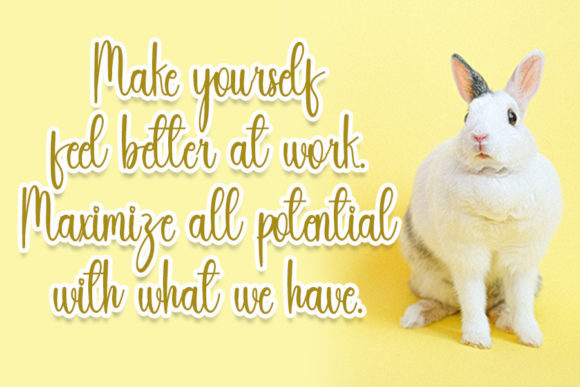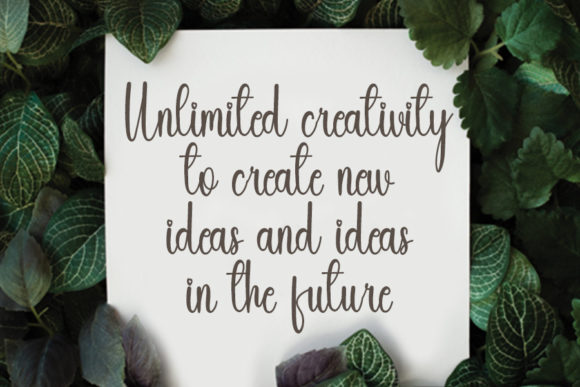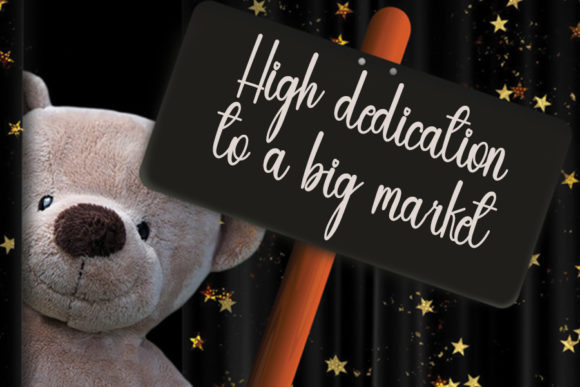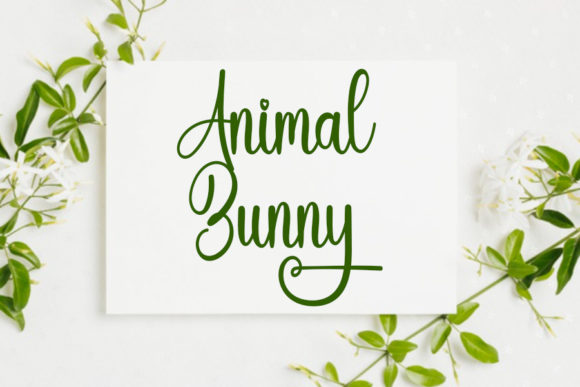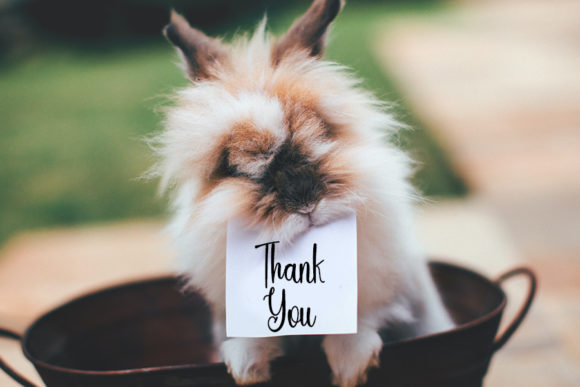
Discover the Magic of Bunny Font: Elevate Your Designs with Style
Have you ever found yourself stuck in a creative rut, staring at a blank page or screen, desperate for the perfect font to bring your project to life? It’s a feeling many designers know all too well. But what if you could add a touch of timeless elegance to your work with a single click?
Enter Bunny Font, a stunning handwritten font that’s as versatile as it is beautiful. Inspired by classic calligraphy, Bunny Font is designed to add a touch of sophistication and whimsy to any project, from elegant invitations to modern logos. With its balanced and varied forms, this font is a valuable addition to any designer’s toolkit, offering endless possibilities for creativity and expression.
- Unique Characteristic: Bunny Font features a unique, playful design with a mix of bold and cursive elements, making it perfect for creating eye-catching headlines and titles.
- Font Style: Bunny Font is available in two styles: Regular and Bold, providing designers with flexibility to choose the perfect font weight for their project.
Bunny Font Review
As a designer, I was initially drawn to the whimsical and playful feel of the Bunny Font. It’s perfect for creating a fun and approachable atmosphere, especially in children’s books, advertisements, or social media graphics. ✨ The font’s rounded edges and friendly character set make it an excellent choice for projects that require a lighthearted tone.
One of the standout features of the Bunny Font is its versatility. It can be used for both digital and print applications, and its OpenType features allow for advanced formatting options. ✨ The font also supports a wide range of languages, making it a great choice for international projects.
However, there are some limitations to consider. ⚠️ The font’s simplicity can sometimes make it feel generic or lacking in personality, especially when used in more formal or professional contexts. Additionally, the font’s character set may not be as extensive as some other popular fonts, which could limit its use in certain applications.
- Whimsical and playful feel
- Perfect for children’s books, advertisements, and social media graphics
Bunny Font is perfect for creating playful and whimsical designs. Use it for:
Children’s book covers and illustrations
Party invitations and decorations
Food and drink labels
To get the most out of Bunny Font, use it in combination with bright and bold colors and playful graphics.
Bunny Font is a playful and whimsical font that adds a touch of cuteness to designs. However, it may not be suitable for all projects. Here are a few alternatives that designers can consider.